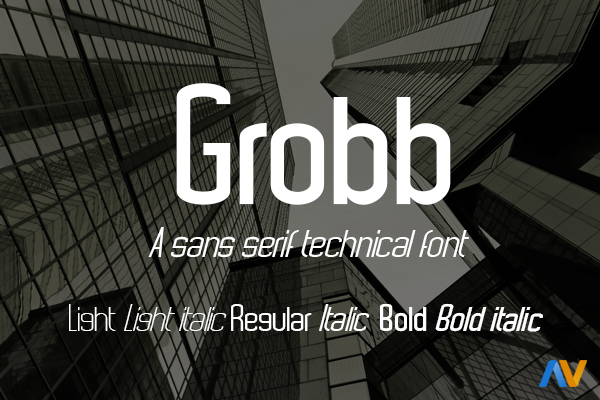
Grobb
A sans serif technical font for a design purposes. Grobb is a font created by Alberto Villanueva 2016. 6 fonts: Light, Light italic, Medium, Medium italic, Bold, Bold italic. Added web fonts.